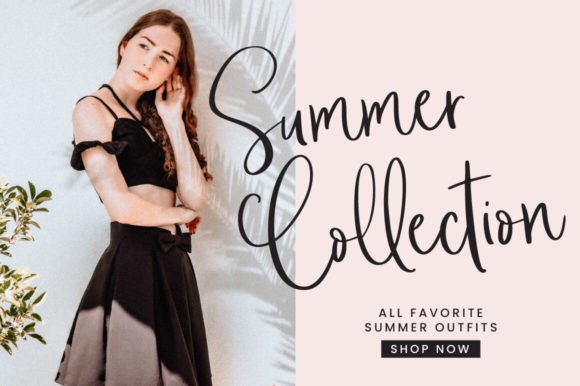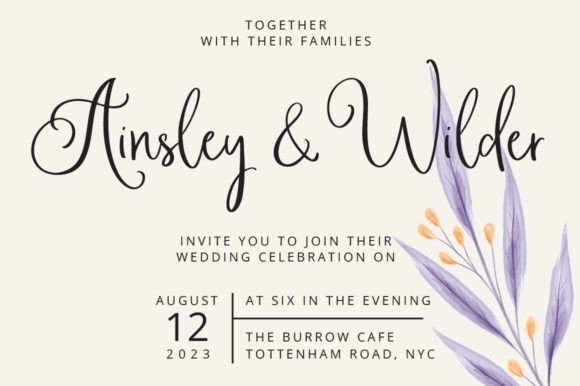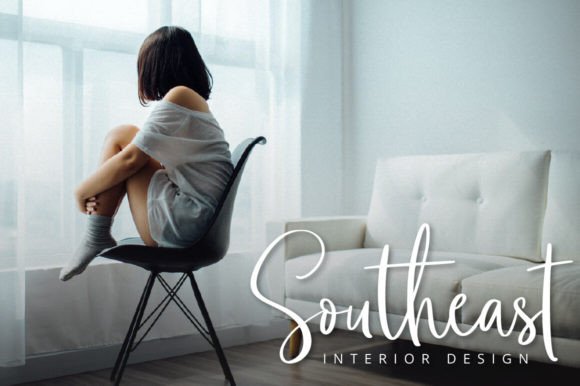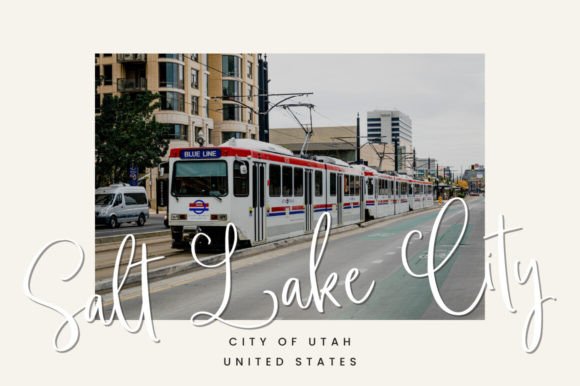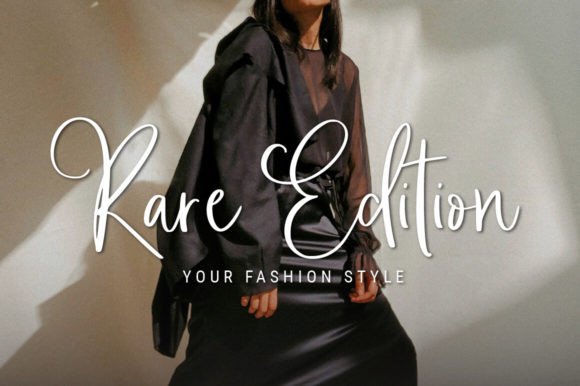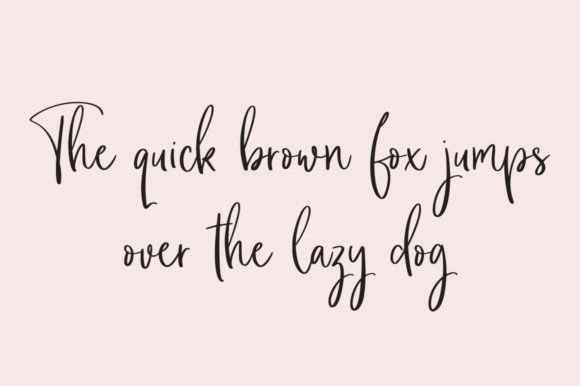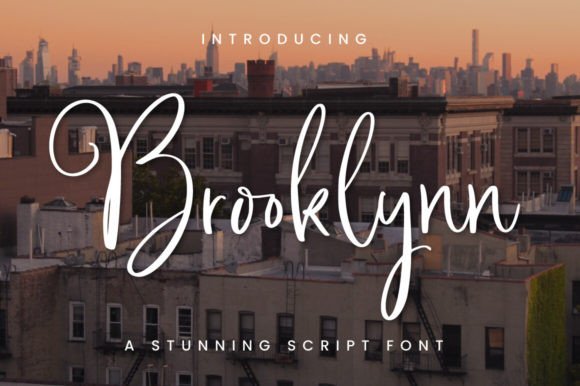
Introducing Brooklynn Font: The Ultimate Luxury Handwritten Font
Are you tired of using generic, overused fonts in your designs? Look no further than Brooklynn Font, a stunning handwritten font that exudes luxury and sophistication. Created to mimic the natural flow and imperfections of handwriting, Brooklynn Font is perfect for designers and crafters looking to add a personal touch to their work.
The Story Behind Brooklynn Font
Brooklynn Font was designed with one goal in mind: to create a font that looks as close to natural handwritten script as possible. The result is a beautiful, unique font that is both elegant and approachable. With its flowing lines and subtle imperfections, Brooklynn Font is sure to add a touch of personality to any design.
What Makes Brooklynn Font So Special?
So, what sets Brooklynn Font apart from other handwritten fonts on the market? Here are just a few of its standout features:
- Full set of uppercase and lowercase letters: Whether you’re creating a logo, wedding stationery, or a social media post, Brooklynn Font has you covered with a comprehensive set of letters.
- Ligatures: Add a touch of sophistication to your designs with Brooklynn Font’s ligatures, which connect letters to create a seamless, handwritten look.
- Multilingual symbols: Reach a global audience with Brooklynn Font’s multilingual symbols, which allow you to create designs that transcend language barriers.
- Numerals and punctuation: From invoices to quotes, Brooklynn Font’s numerals and punctuation ensure that your designs are both beautiful and functional.
Brooklynn Font is incredibly versatile, making it perfect for a wide range of design projects, including:
- Logos: Create a lasting impression with a custom logo that showcases your brand’s personality.
- Wedding stationery: Make your wedding invitations, programs, and other stationery truly unforgettable with Brooklynn Font.
- Cards and gift designs: Add a personal touch to your greeting cards, gift tags, and other paper crafts.
- Photography: Use Brooklynn Font to create beautiful watermarks, overlays, and other design elements that complement your photos.
- Product packaging: Stand out on store shelves with custom product packaging that features Brooklynn Font.
- Handwritten quotes: Share your favorite quotes and phrases in a beautiful, handwritten font that adds a touch of elegance to any design.
Why Designers and Crafters Love Brooklynn Font
So, why do designers and crafters love Brooklynn Font? Here are just a few reasons:
- Unique and eye-catching: Brooklynn Font is anything but generic. Its unique, handwritten style ensures that your designs will stand out from the crowd.
- Easy to use: With its comprehensive set of letters, ligatures, and other features, Brooklynn Font is easy to use, even for designers and crafters who are new to handwritten fonts.
- Versatile: Whether you’re creating a logo, wedding stationery, or a social media post, Brooklynn Font is the perfect choice.
In conclusion, Brooklynn Font is a luxury handwritten font that is perfect for designers and crafters looking to add a personal touch to their work. With its comprehensive set of letters, ligatures, multilingual symbols, numerals, and punctuation, Brooklynn Font is the ultimate versatile font for a wide range of design projects. So why wait? Try Brooklynn Font today and see the difference it can make in your designs!